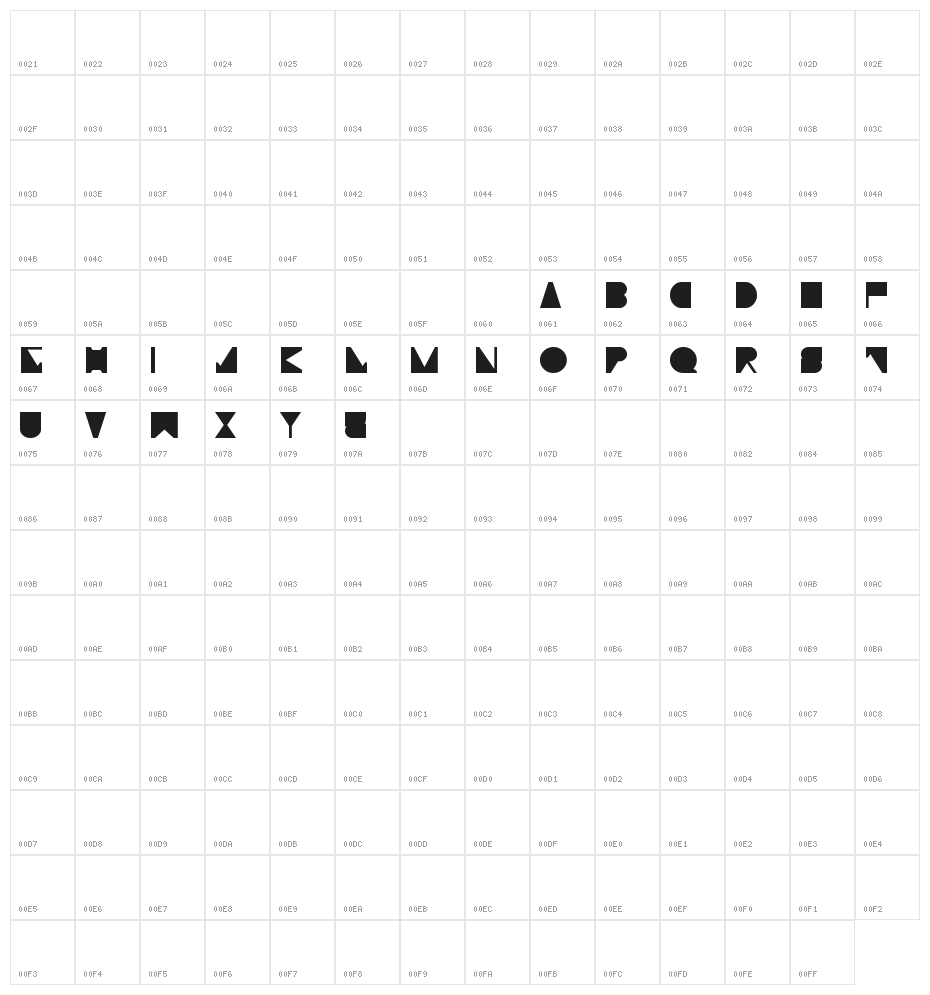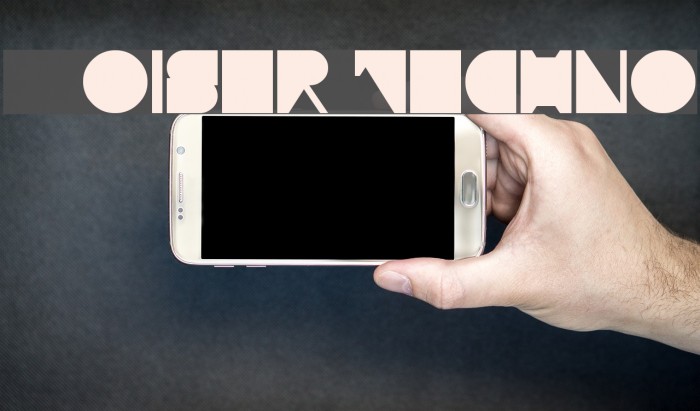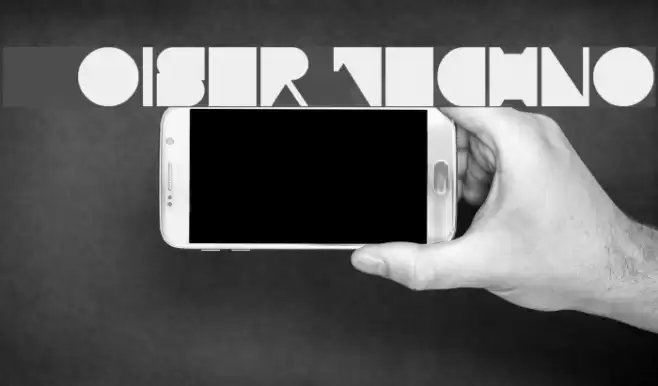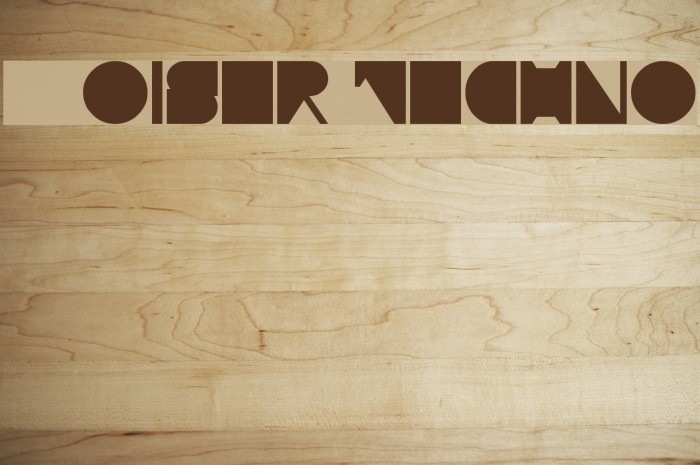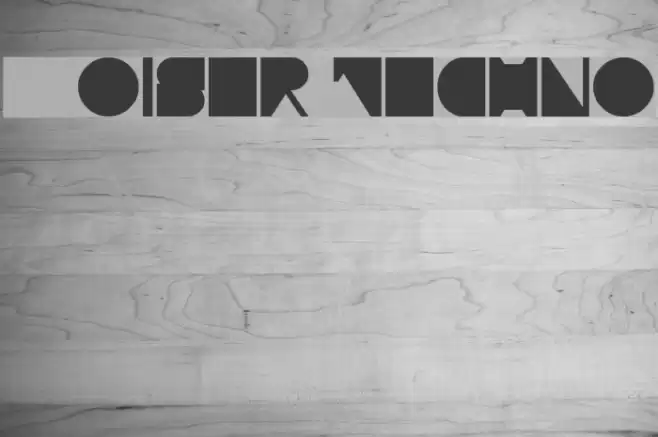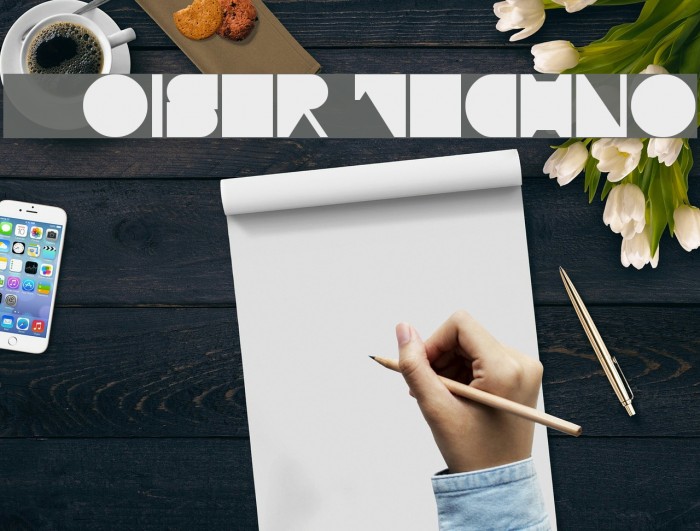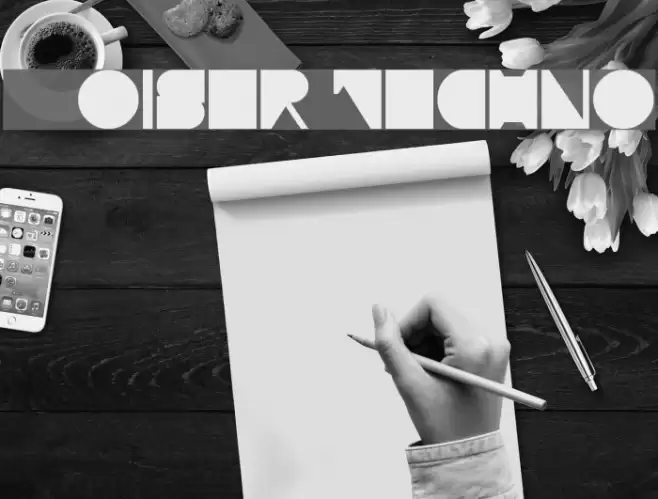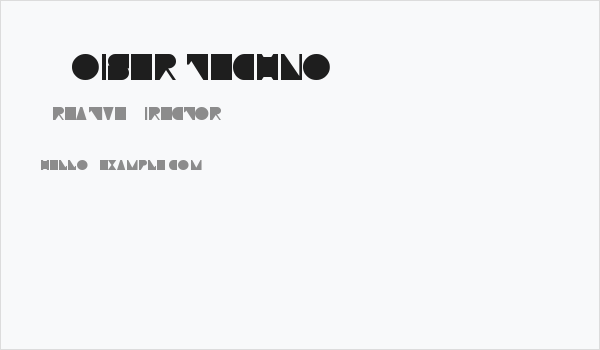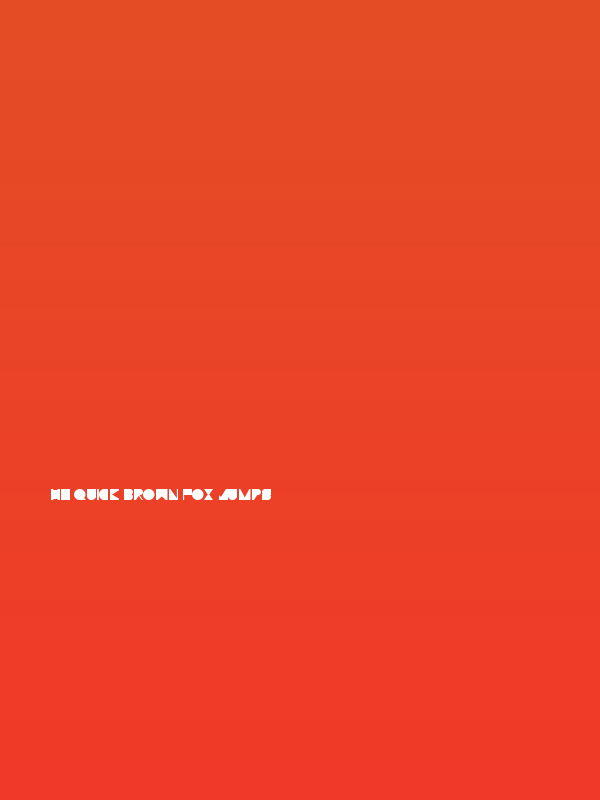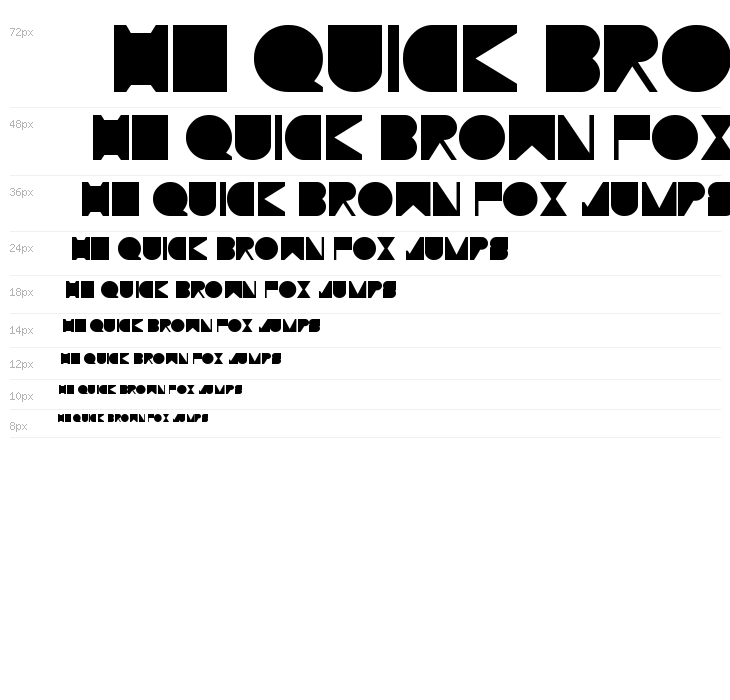
Moiser techno Font
Moiser techno Description
This font features a bold, geometric design with a distinctly modern and techno-inspired aesthetic. The characters are constructed with sharp angles and straight lines, giving them a futuristic and industrial feel. The uppercase letters are particularly striking, with a blocky and robust appearance that commands attention. The lowercase letters maintain the same geometric style, ensuring consistency across the typeface. Numbers and special characters are designed to match the overall theme, making this font ideal for digital and tech-related projects. The uniformity and precision of the characters make it suitable for creating impactful headlines and logos.
| Proposed Projects | Ideal for digital media, tech branding, futuristic designs, and impactful headlines. |